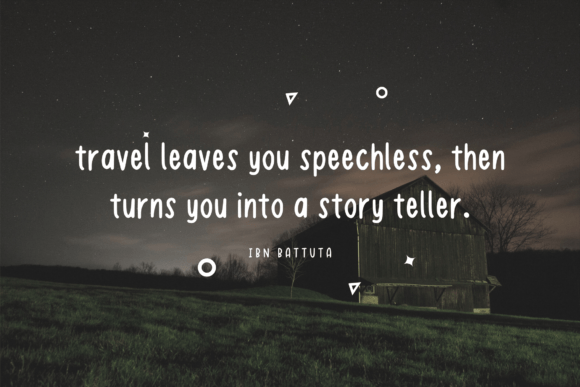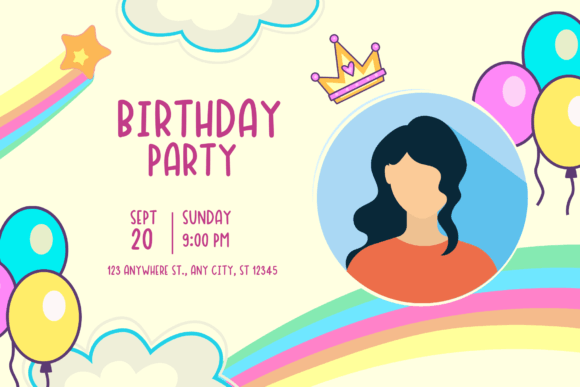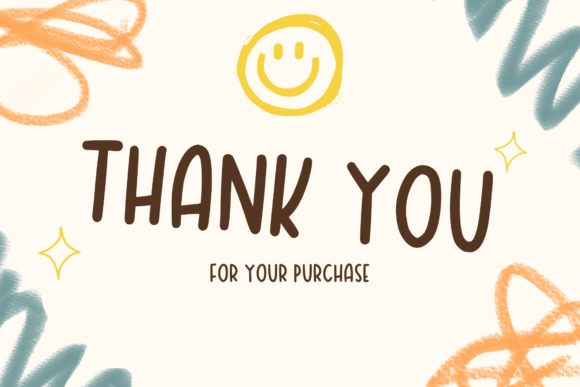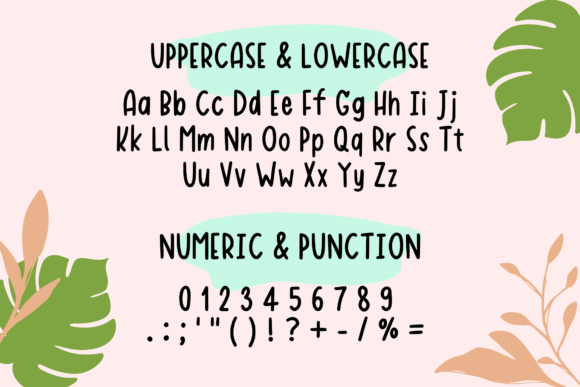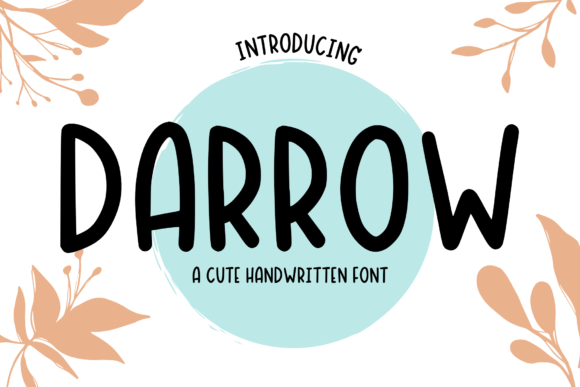
Darrow Font: The Playful and Cute Hand-Lettered Font for Creative Projects
Are you a designer or crafter looking for a font that can add a touch of playfulness and cuteness to your creative projects? Look no further than the Darrow font. This hand-lettered font is perfect for a variety of applications, from children’s activities to web design, and is sure to bring a smile to your audience’s faces.
What is Darrow Font?
Darrow font is a playful and cute hand-lettered font that is designed to bring a sense of fun and whimsy to your designs. Its unique and irregular letterforms make it stand out from more traditional fonts, and its friendly feel makes it perfect for projects that require a personal touch.
Characteristics of Darrow Font
So, what makes Darrow font so special? Here are just a few of its key characteristics:
- Hand-lettered: Darrow font is a hand-lettered font, which means that each letter was carefully crafted by hand to create a unique and personal feel.
- Playful: Darrow font is playful and fun, making it perfect for projects that require a lighthearted touch.
- Cute: With its rounded letterforms and friendly feel, Darrow font is sure to bring a smile to your audience’s faces.
- Versatile: Darrow font can be used for a wide range of applications, from children’s activities to web design.
Uses for Darrow Font
So, what can you use Darrow font for? Here are just a few ideas to get you started:
- Children’s activities: Darrow font is perfect for children’s activities, such as coloring books, activity sheets, and educational materials.
- Web design: Darrow font can be used to add a playful touch to your website or blog.
- Social media graphics: Use Darrow font to create fun and engaging social media graphics, such as quote graphics or announcement cards.
- Crafting projects: Darrow font can be used for a variety of crafting projects, such as card making, scrapbooking, and DIY signs.
Why Choose Darrow Font?
So, why should you choose Darrow font for your next project? Here are just a few reasons:
- Unique: Darrow font is a unique and one-of-a-kind font that will help your project stand out from the crowd.
- Easy to read: Despite its playful feel, Darrow font is easy to read and can be used for both headings and body text.
- Customizable: Darrow font can be customized to fit your project’s needs, including adjusting the font size, color, and style.
- Fun: Darrow font is a fun and playful font that will add a touch of whimsy to your project.
Tips for Using Darrow Font
Here are a few tips for using Darrow font in your next project:
- Use it sparingly: While Darrow font is playful and fun, it can be overwhelming if used too much. Use it sparingly to add a touch of whimsy to your project.
- Pair it with other fonts: Darrow font can be paired with other fonts to create a unique and interesting look.
- Experiment with colors: Darrow font can be used with a variety of colors to create a fun and playful look.
In conclusion, Darrow font is a playful and cute hand-lettered font that is perfect for a variety of creative projects. Its unique and irregular letterforms make it stand out from more traditional fonts, and its friendly feel makes it perfect for projects that require a personal touch. Whether you’re a designer or crafter, Darrow font is sure to bring a touch of whimsy and fun to your next project.
So why not give Darrow font a try? With its versatility, customizability, and playful feel, it’s sure to be a great addition to your font collection.